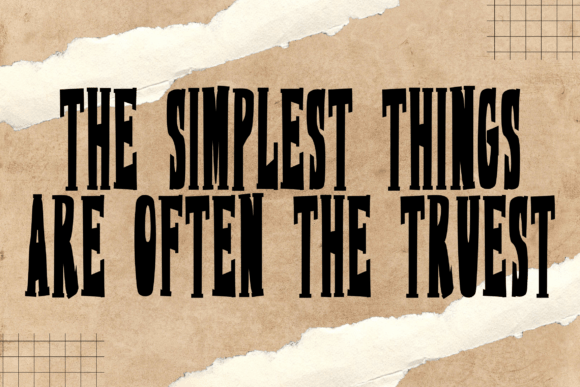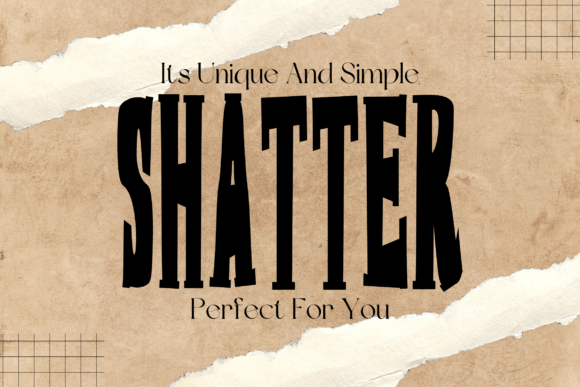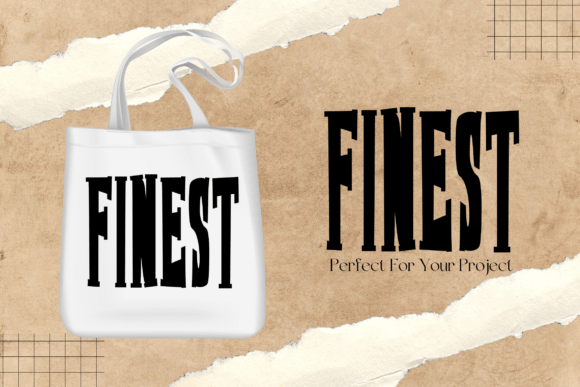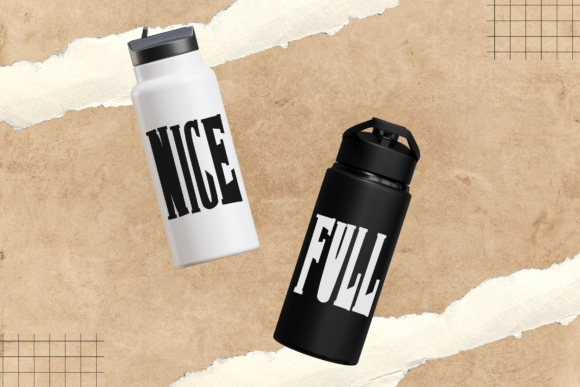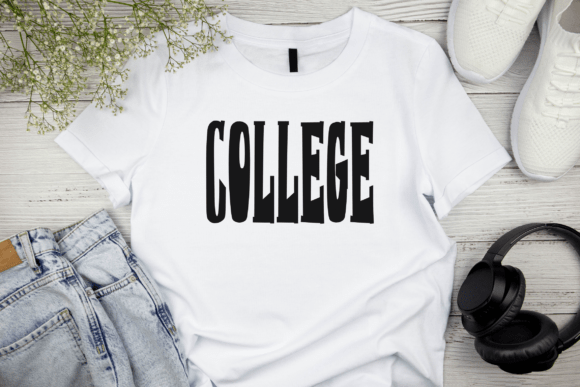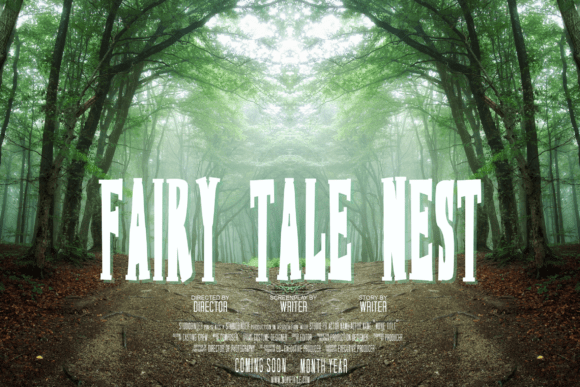
Unleash the Power of Collegiate Style with Condense College Font
Exuding athletic elegance, the Condense College Font is a dynamic, collegiate-style typography that commands attention. With its lean, tightly packed letter structure, this typeface is the MVP when it comes to sports branding, university logos, and varsity team insignias. Adorning apparel, emblazoning banners, or enhancing academic initiatives – it’s as versatile as it is aesthetically pleasing.
The Perfect Blend of Style and Substance
The Condense College Font is more than just a typeface – it’s an experience. Its robust structure breathes life into striking headlines, draws visual interest on merchandise, and makes digital designs holler old-school academia. Whether you’re a designer, crafty DIY enthusiast, or a university administrator, this font is sure to deliver not just typography, but also the solid, vintage feel of the classic collegiate experience.
So, what can you do with the Condense College Font? The possibilities are endless:
- Sports Branding: Create eye-catching logos, jerseys, and merchandise for your favorite sports team.
- University Logos: Give your university or college a professional, cohesive look with custom typography.
- Varsity Team Insignias: Design custom insignias, banners, and apparel for your school’s varsity teams.
- Apparel and Merchandise: Add a touch of collegiate style to t-shirts, hoodies, water bottles, and more.
- Digital Designs: Enhance your website, social media, or marketing materials with a bold, athletic font.
Why Choose Condense College Font?
Here are just a few reasons why Condense College Font stands out from the rest:
- Unique Style: Its lean, tightly packed letter structure sets it apart from other fonts.
- Versatility: Use it for a wide range of applications, from sports branding to academic initiatives.
- Vintage Feel: Evokes the classic collegiate experience, perfect for those looking for a nostalgic touch.
Tips for Getting the Most Out of Condense College Font
Here are some expert tips for using Condense College Font in your designs:
- Experiment with Colors: Try pairing the font with bold, contrasting colors to really make it pop.
- Play with Layouts: Don’t be afraid to get creative with your design layout – the font’s versatility lends itself to experimentation.
- Mix and Match: Combine Condense College Font with other fonts to create a unique, eye-catching look.
In conclusion, the Condense College Font is a game-changer for designers, crafters, and university administrators looking to add a touch of athletic elegance to their projects. With its unique style, versatility, and ease of use, this font is sure to become a staple in your design toolkit. So why wait? Download Condense College Font today and unleash the power of collegiate style on your designs!